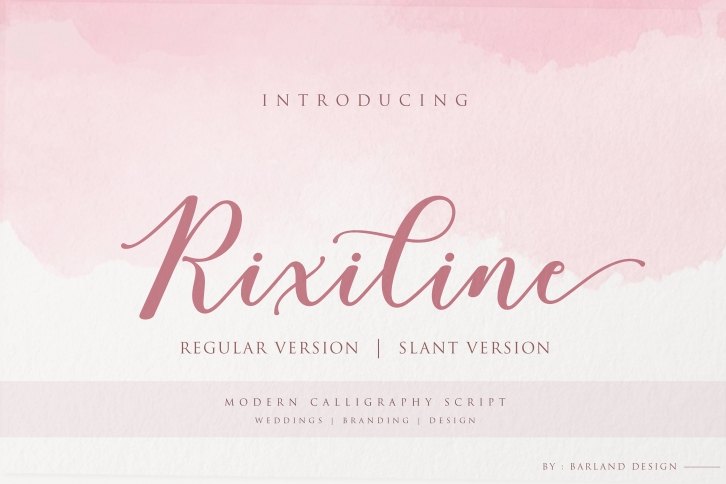
Rixiline Script is a trendy and unique font with an authentic style. It was designed by barland and it's a great choice for creative people who need such a font. It was released on June 15, 2021 and the file size is 4.33 MB. Rixiline Script will add an organic vibe to any design idea!